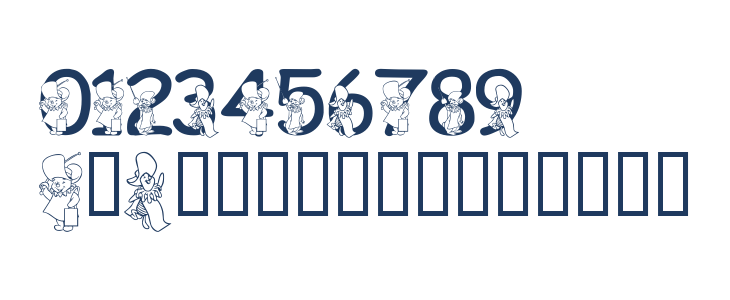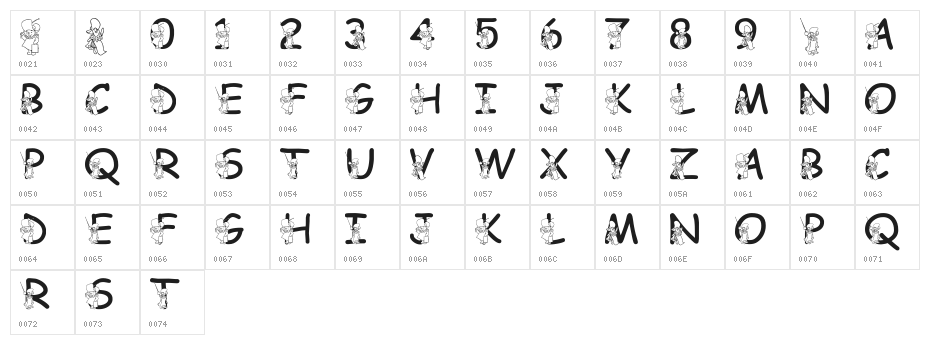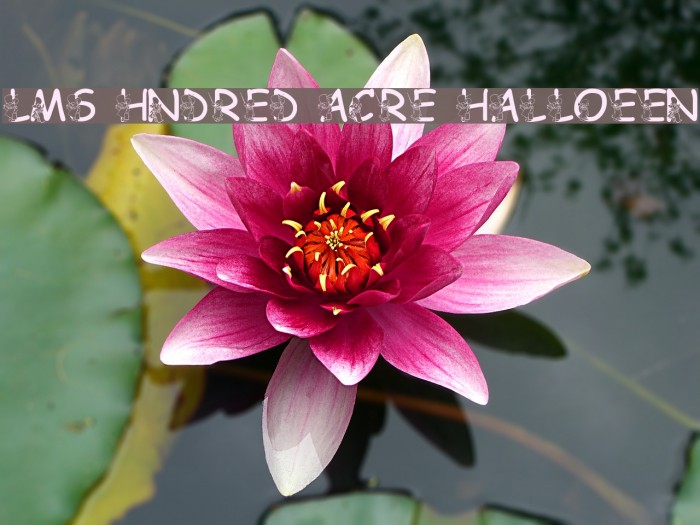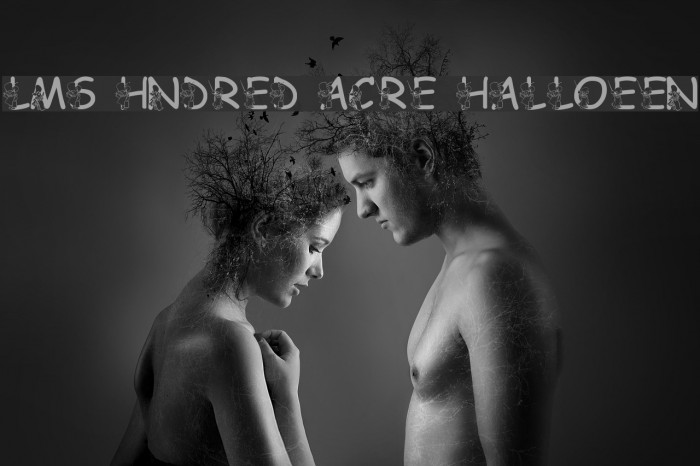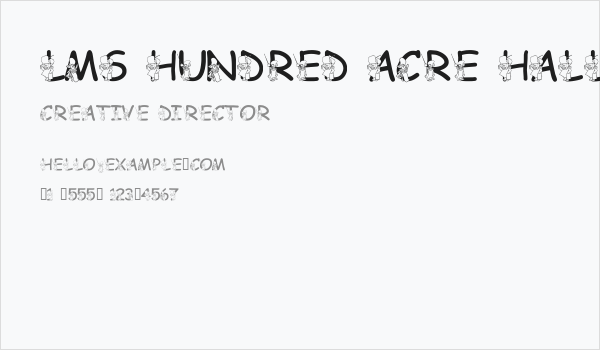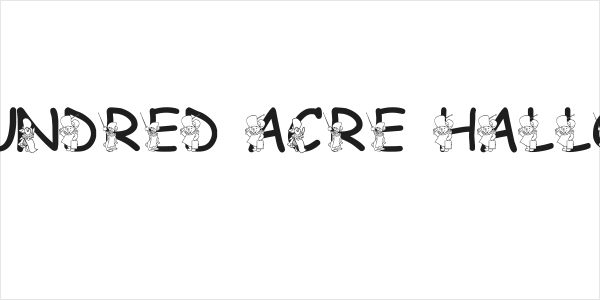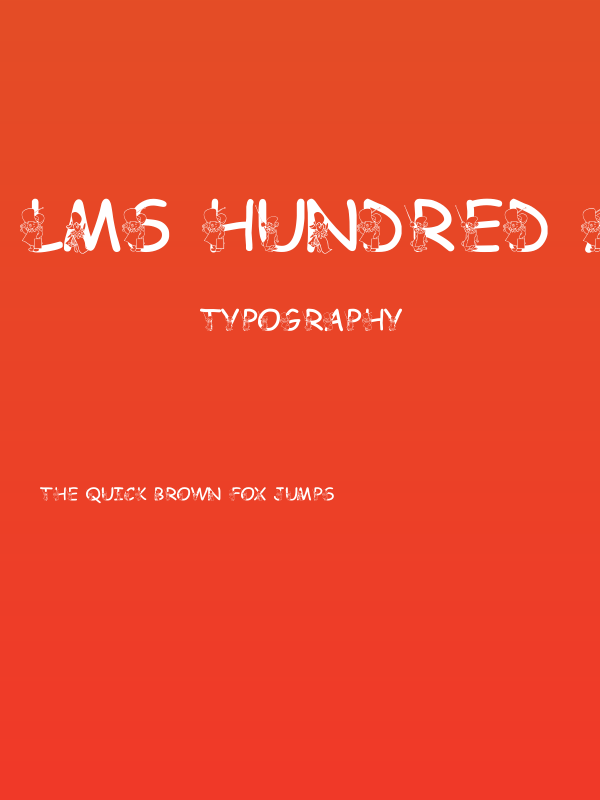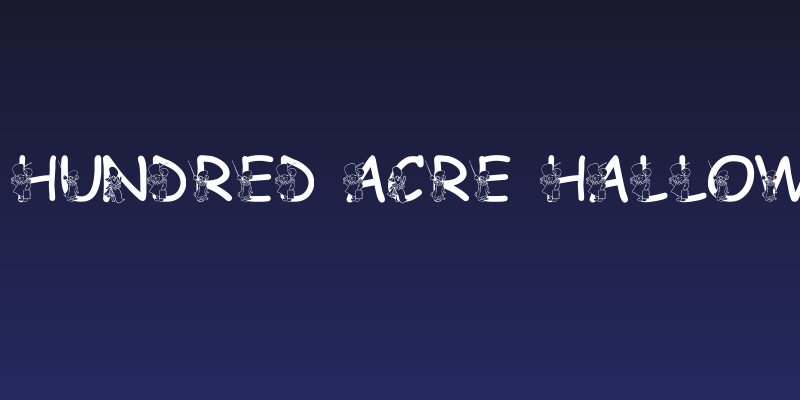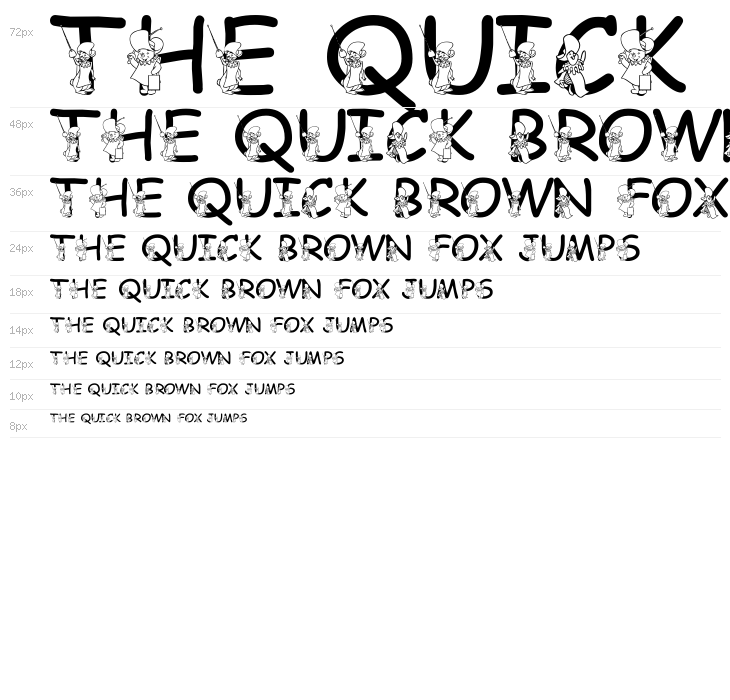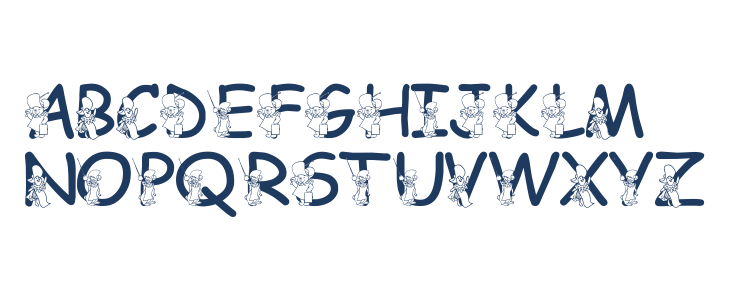
LMS Hundred Acre Halloween Font
LMS Hundred Acre Halloween Description
This playful and whimsical font features bold, rounded letters adorned with charming Halloween-themed characters. Each letter is accompanied by a delightful illustration, adding a festive and fun element to the typography. The characters are integrated seamlessly into the design, creating a cohesive and engaging visual experience. The font maintains a consistent weight and width throughout, ensuring readability despite its decorative elements. Ideal for seasonal projects, it brings a sense of joy and creativity to any design.
| Overall Style | Playful, Festive |
| Proposed Projects | Perfect for Halloween invitations, children's party decorations, themed posters, and playful branding projects. |